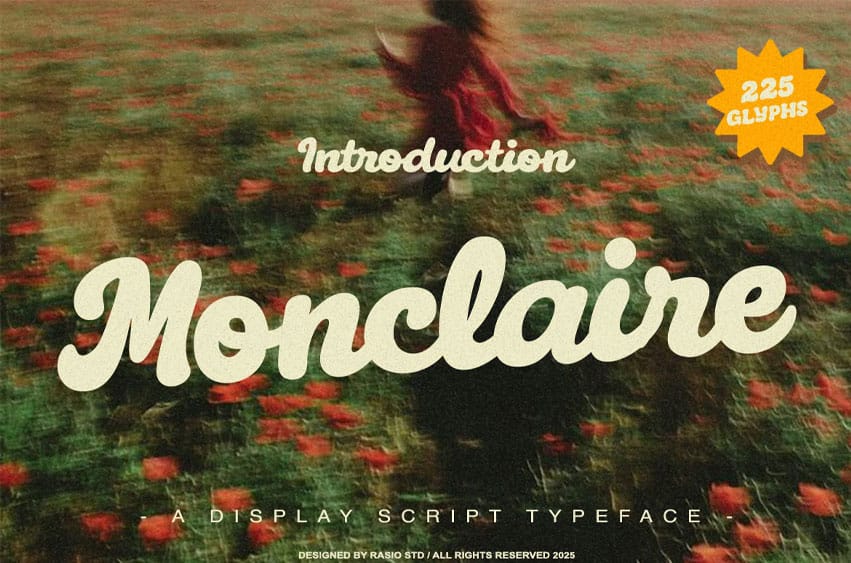
Monclaire Font is a vintage-inspired display script font featuring smooth handwritten curves, warm retro charm, and expressive stroke dynamics. Designed with soft rounded terminals and natural flow, it brings a nostalgic yet friendly personality to any visual project. The font includes uppercase, lowercase, numerals, punctuation, multilingual characters, and stylistic accents that enhance its handcrafted appearance. With its organic rhythm and inviting aesthetic, Monclaire is perfect for branding, packaging, invitations, and headlines that need authenticity, emotion, and soulful warmth.
Relevance and Use Cases is perfect for retro branding, nostalgic product packaging, café and bakery identity, wedding invitations, warm greeting cards, merchandise titles, vintage posters, handwritten quotes, lifestyle editorials, and any creative project that needs expressive script personality.
Bring nostalgic charm to your designs with Monclaire — a warm display script crafted for expressive, retro-inspired creativity.